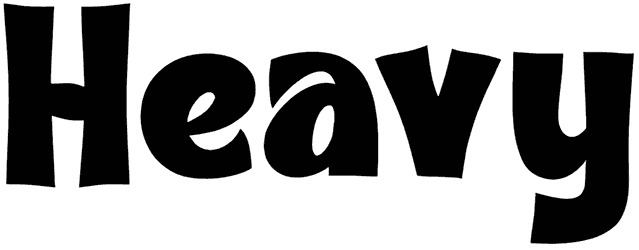
Heavy Font
Choosing a masterpiece like Heavy can demonstrate your flawless understanding of the significant importance of selecting a dynamic cartoon font in the field of boosting the visibility of graphic content.
This font comes with chunky characters and leads to a sense of momentum, childishness, vivacity, or joy. In addition to all of its numerous benefits, it can be perfectly fit for a wide set of editorial projects ranging from storybook covers, flyers, banner ads, street posters, or social media posts.